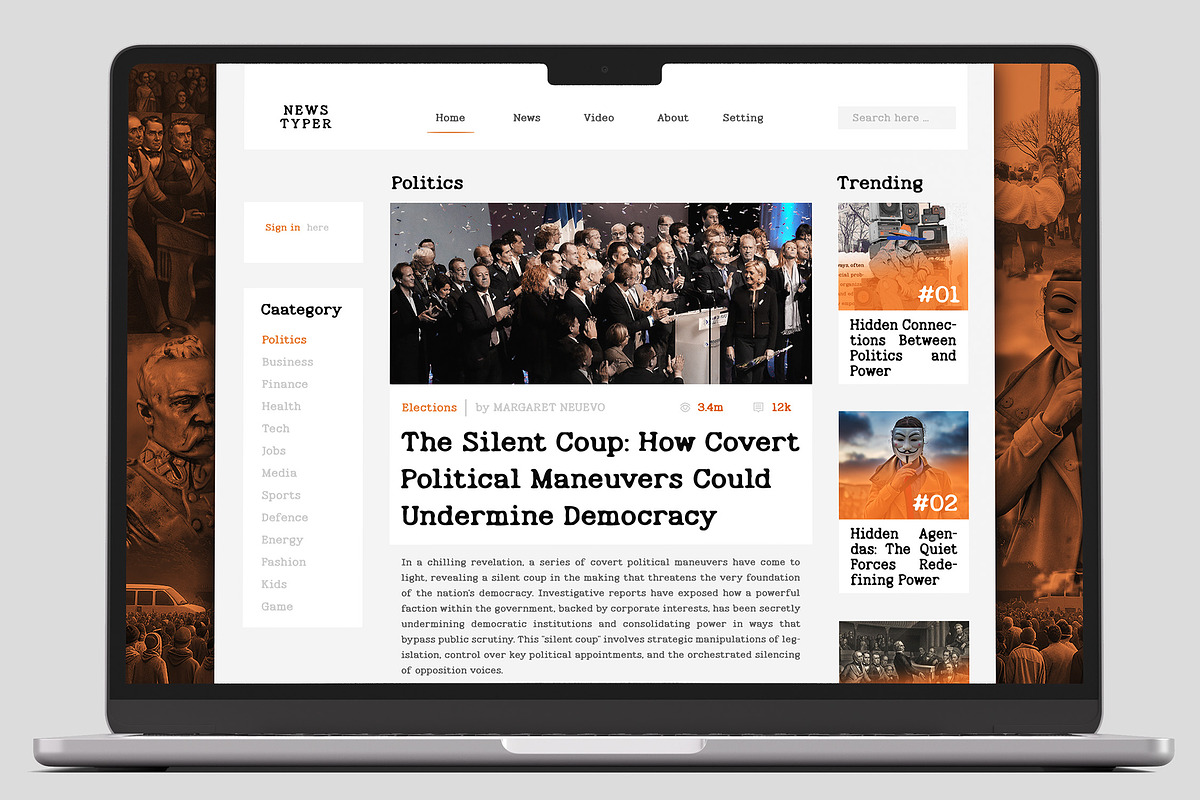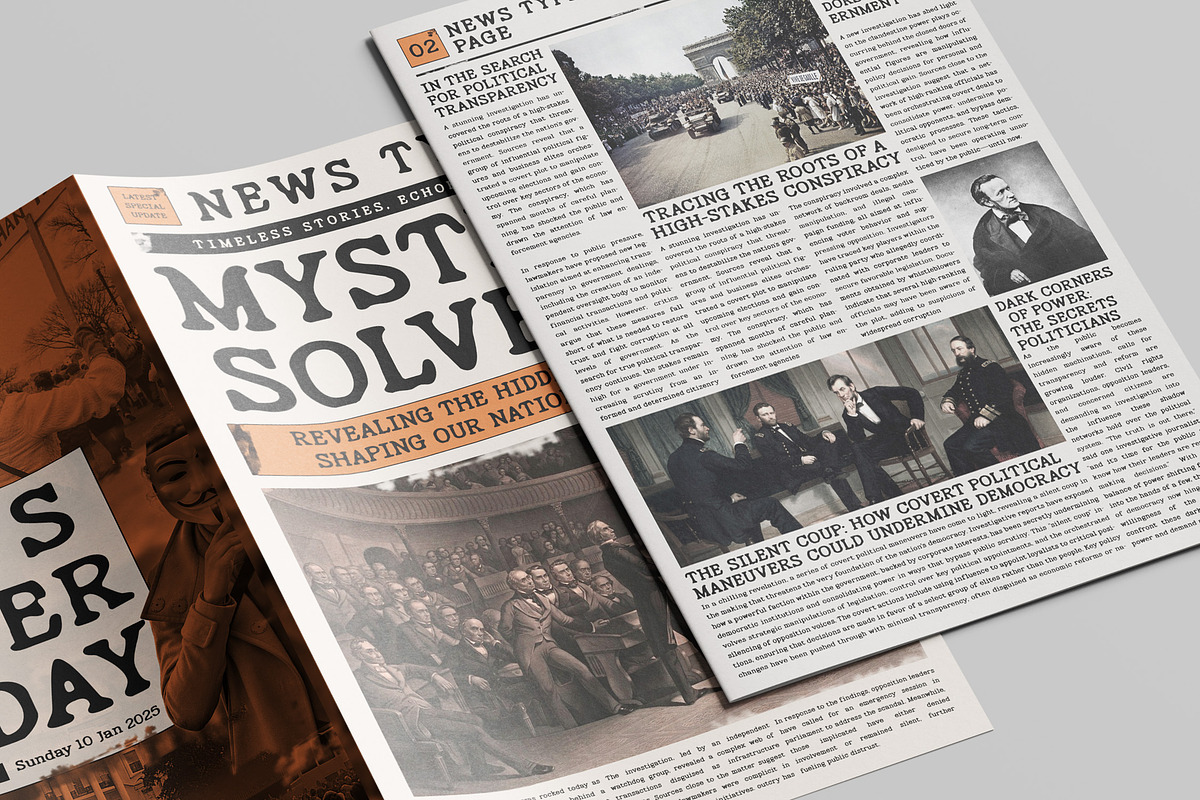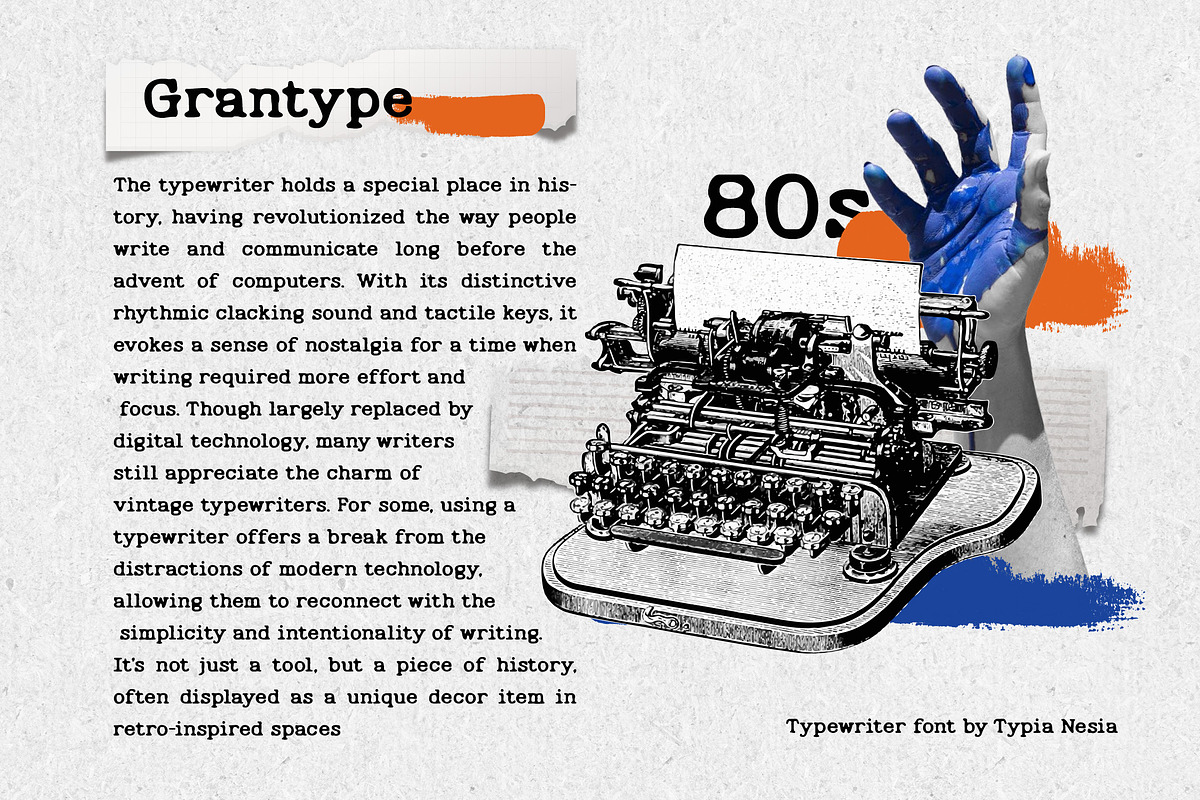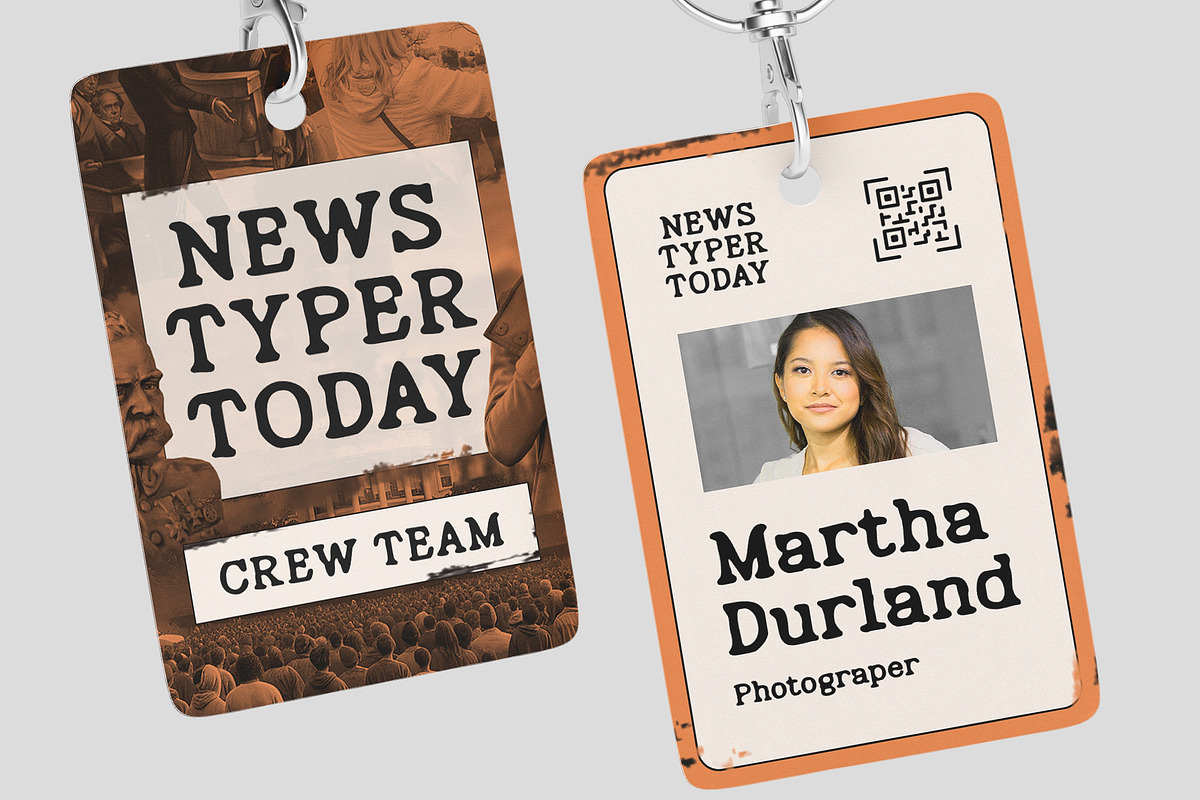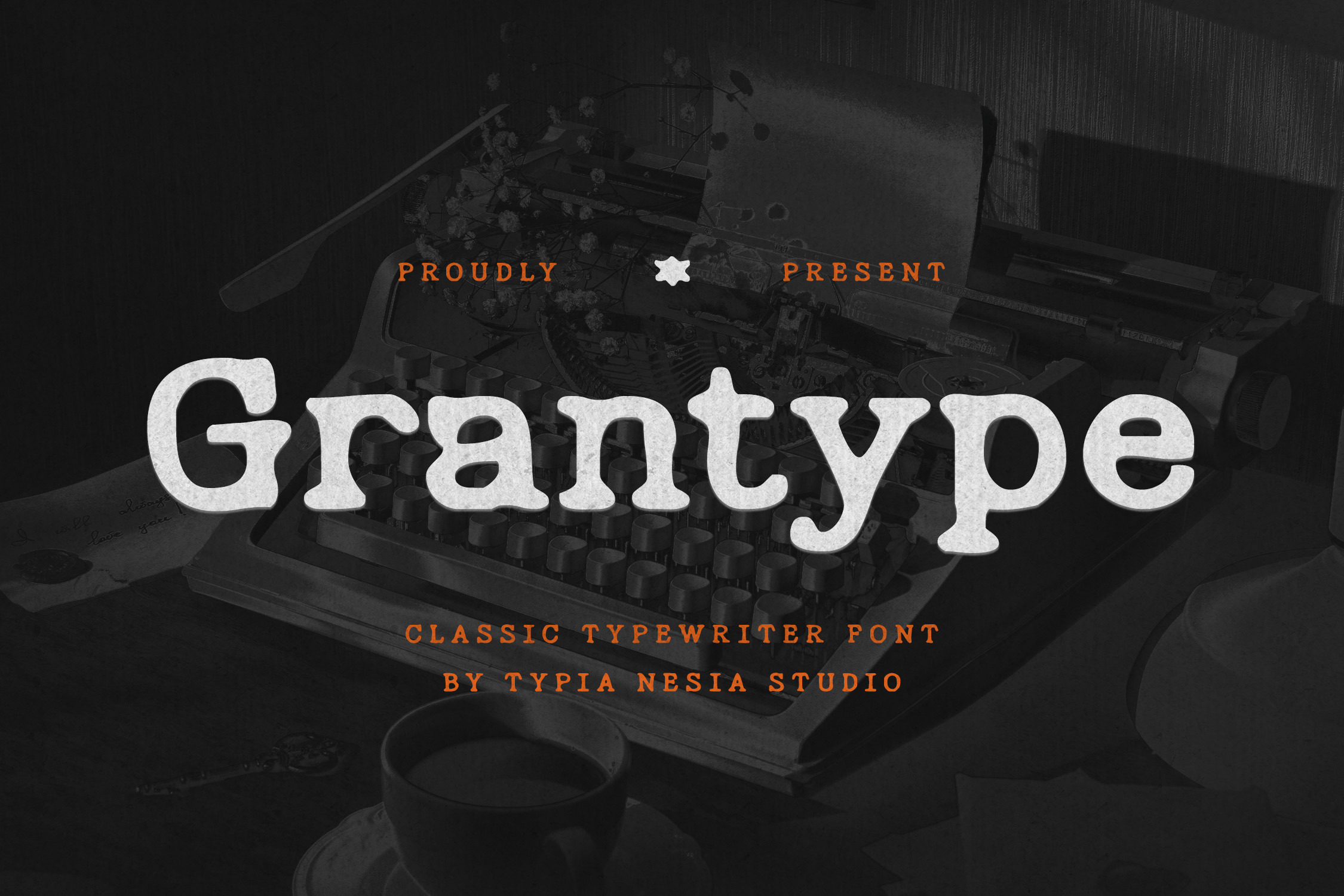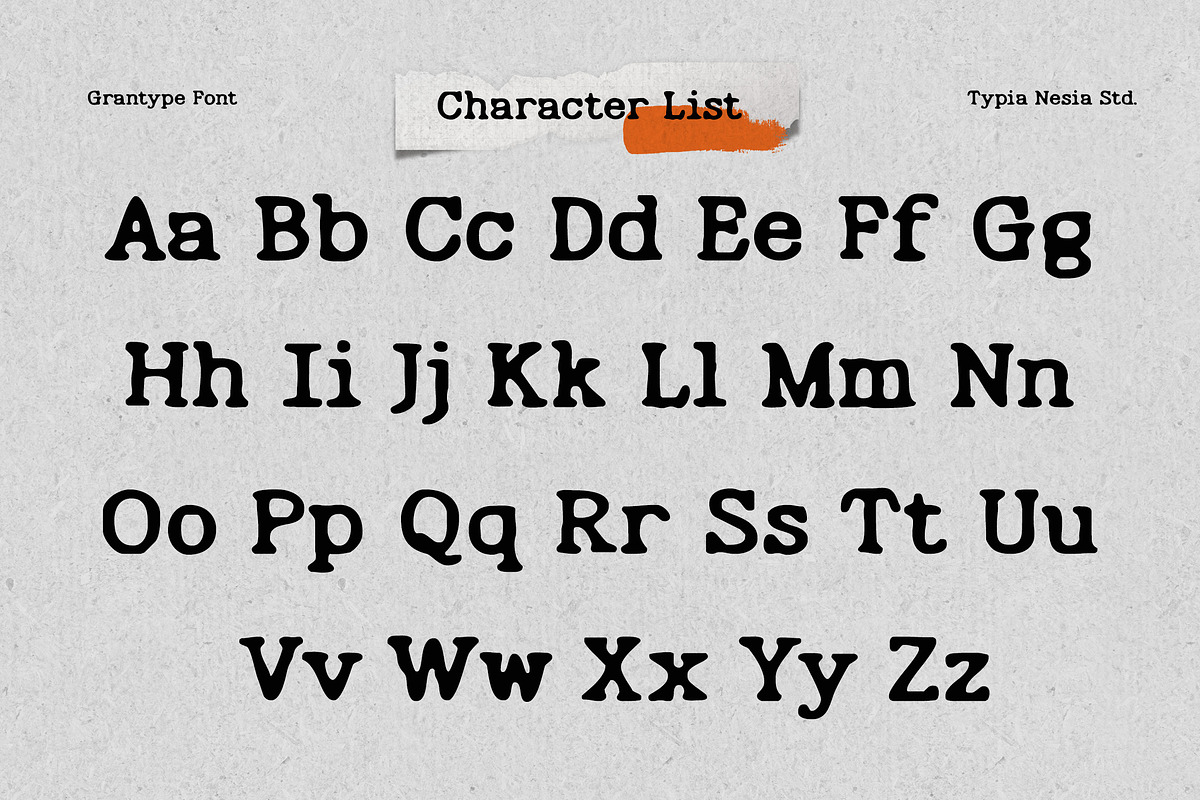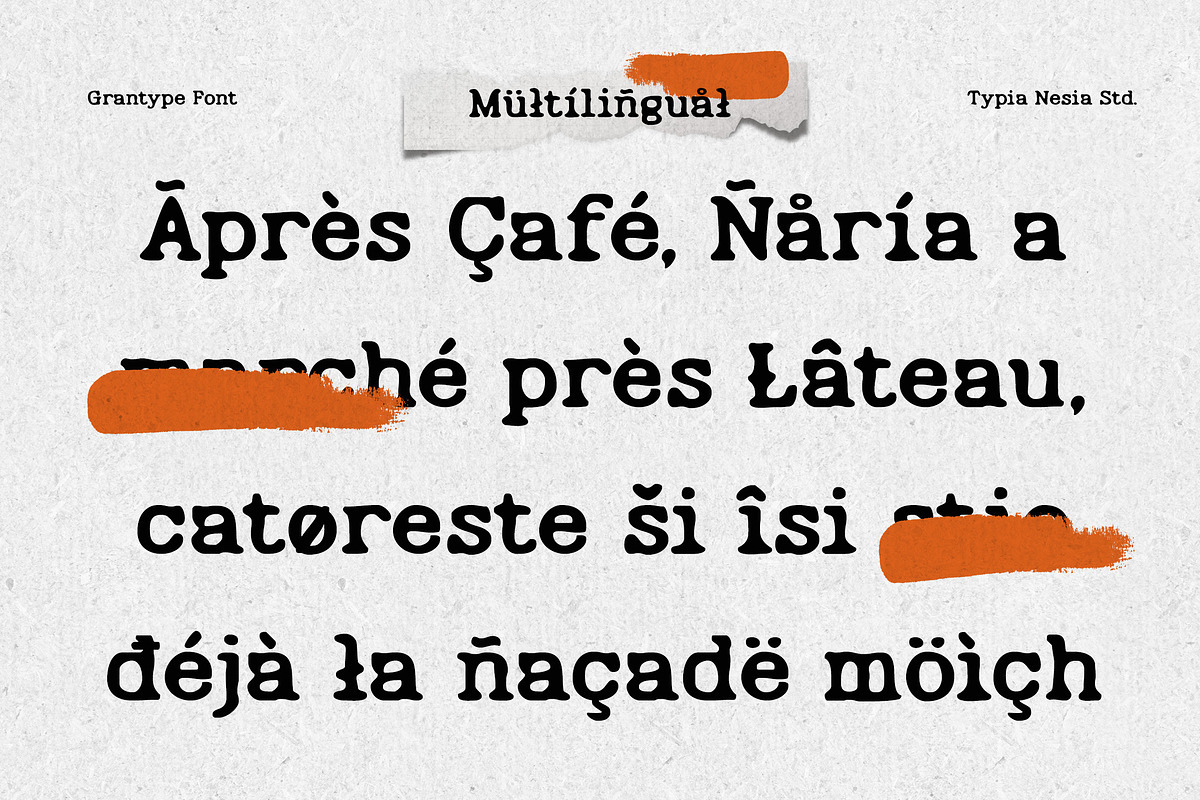
Grantype - Classic Typewriter Font -
Grantype - Classic Typewriter Font - Vintage Retro Old Display Font
Grantype is a timeless Classic Typewriter Font that brings the charm of vintage typewriters to the modern design world. With its clean and authentic letterforms, Grantype captures the nostalgic feel of old-school typing while maintaining a versatility for any project, such as branding, editorial projects, retro-themed designs, stationery, logo design, book covers, vintage posters, newspaper, magazine, social media graphics, and anymore. Comes with a complete set of uppercase and lowercase letters, punctuation, numerals with multilingual support, it seamlessly adapts to global audiences, making it a versatile choice for international projects. Crafted for designers who appreciate the aesthetic of vintage typewriters, Grantype offers a seamless blend of tradition and modern usability. It’s the ideal font for adding a retro yet sophisticated vibe to your work.
Typia Nesia Std.